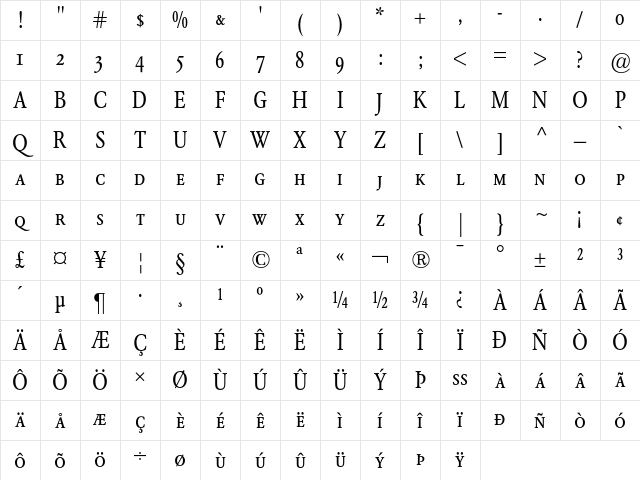
Garamond BE Condensed Small Caps & Oldstyle Figures
Style: Condensed Small Caps & Oldstyle Figures
Design Context for Garamond BE
Garamond BE carries the refined structure of traditional serif typography, with bracketed terminals and considered proportions that communicate credibility and craft. Its narrow stance lets it pack a punch even in space-constrained designs.